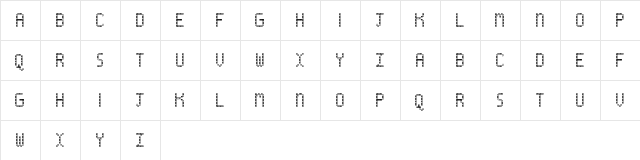
Pixel Filmstrip Regular
Design Context for Pixel Filmstrip Typeface
Pixel Filmstrip is rooted in pixel-grid construction, making it a natural fit for game UI, retro computing aesthetics, and digital nostalgia projects.
A natural choice for retro game titles, chiptune music branding, 8-bit UI, and digital nostalgia projects.
Pro Tip: Pair Pixel Filmstrip with flat colour palettes and simple geometric UI elements to reinforce its digital aesthetic.